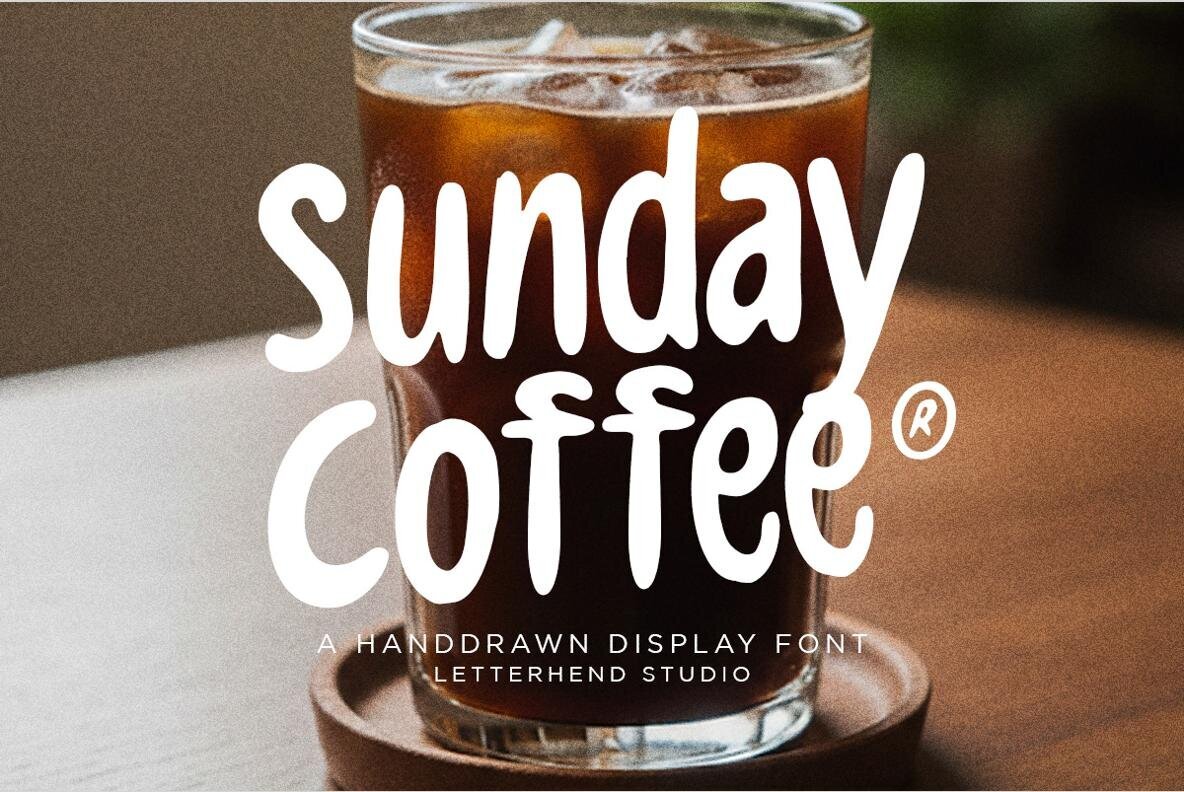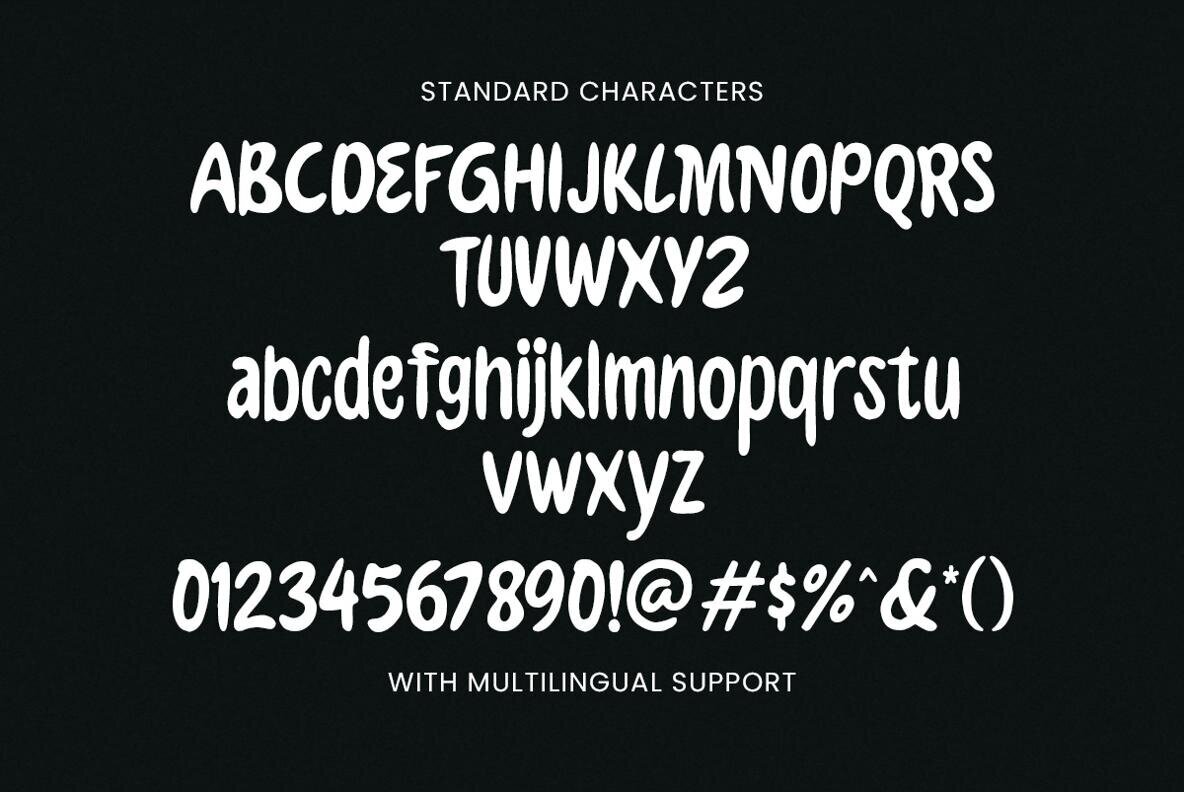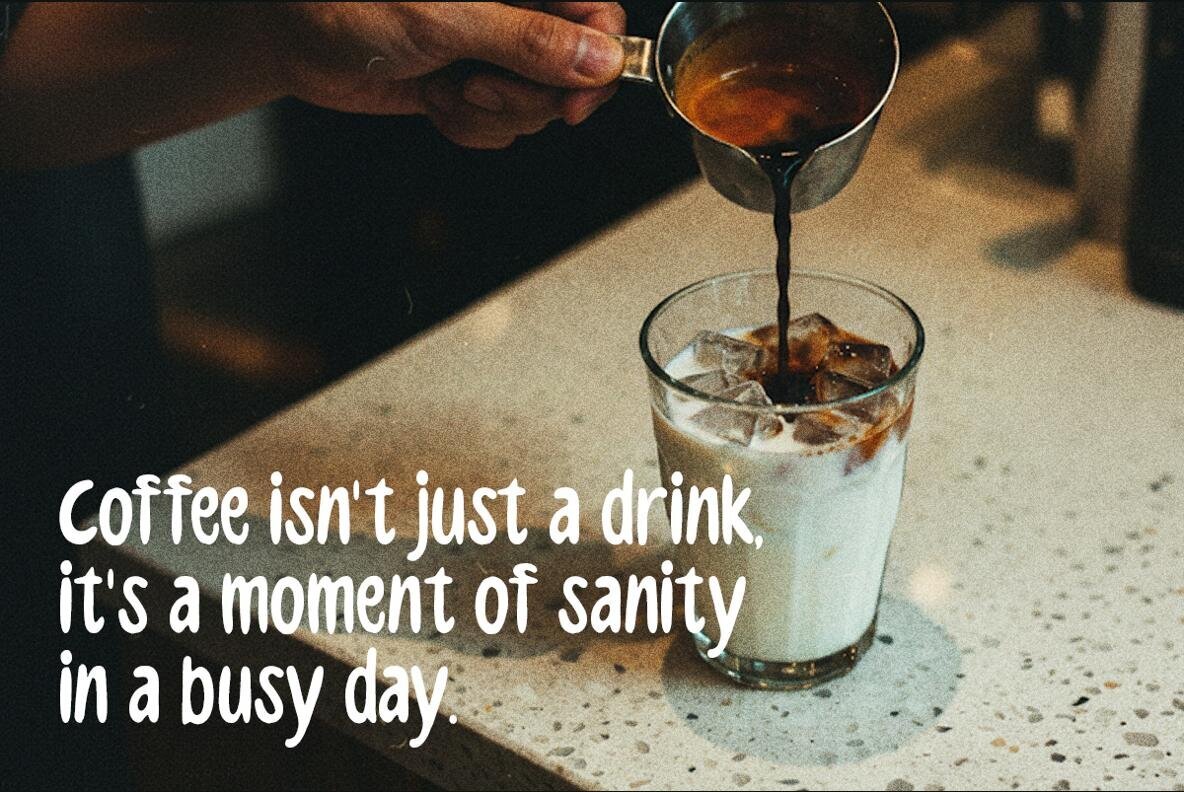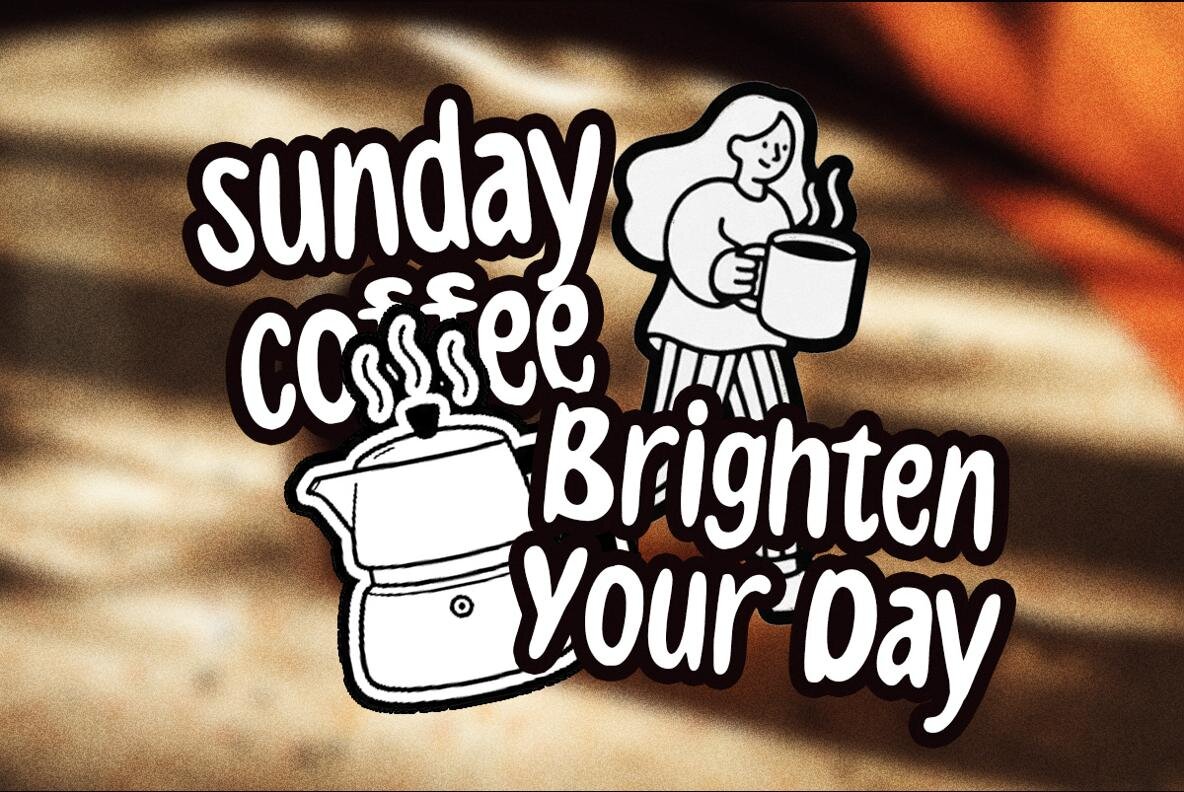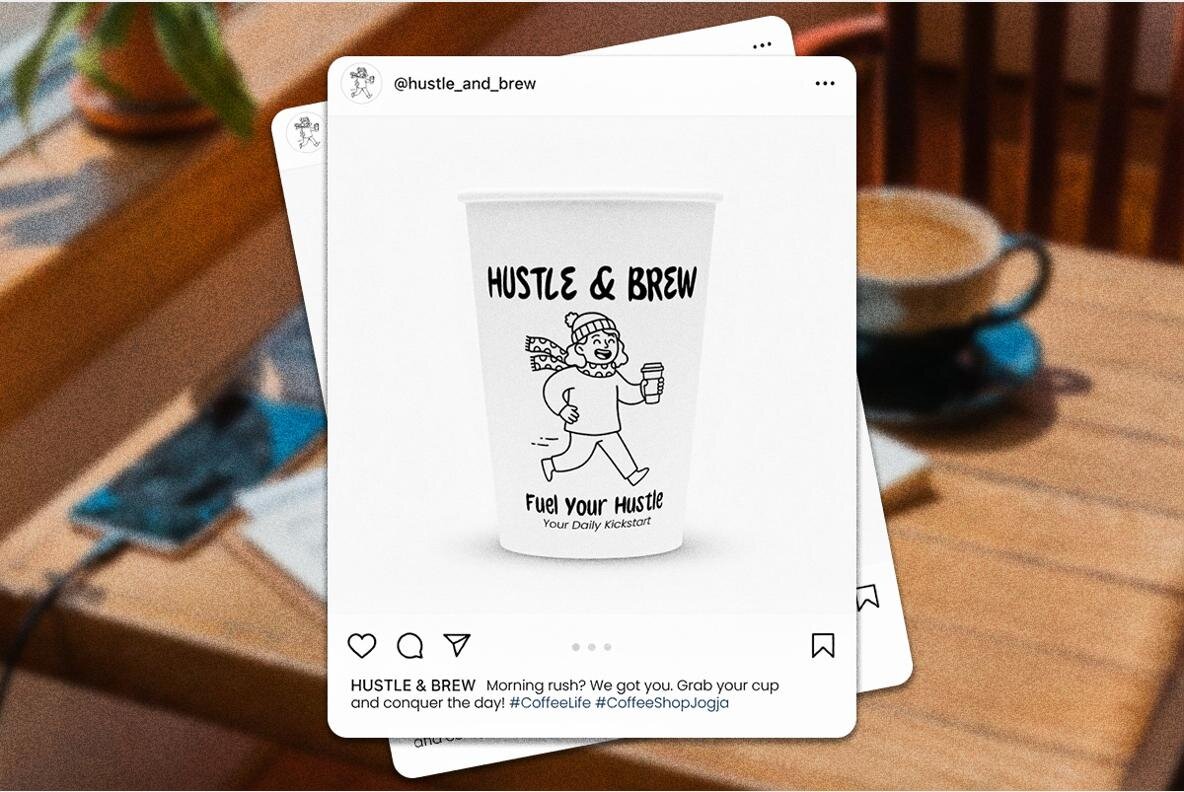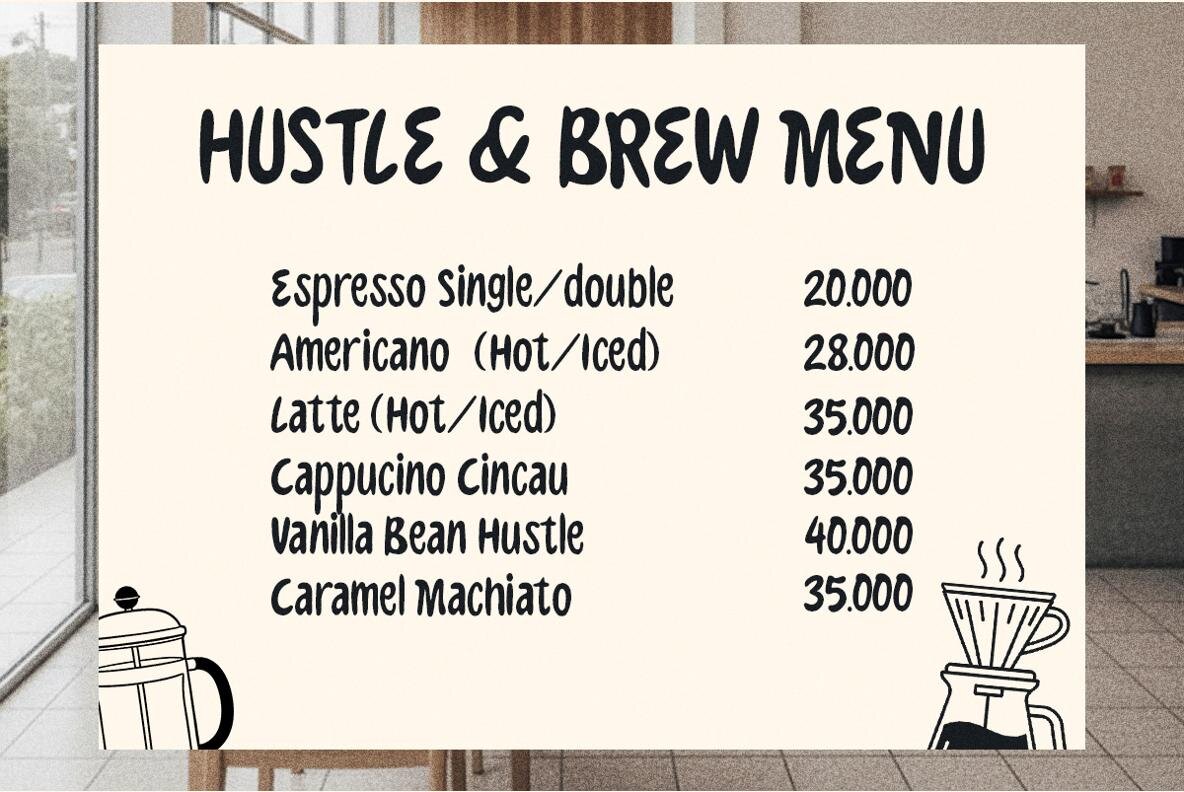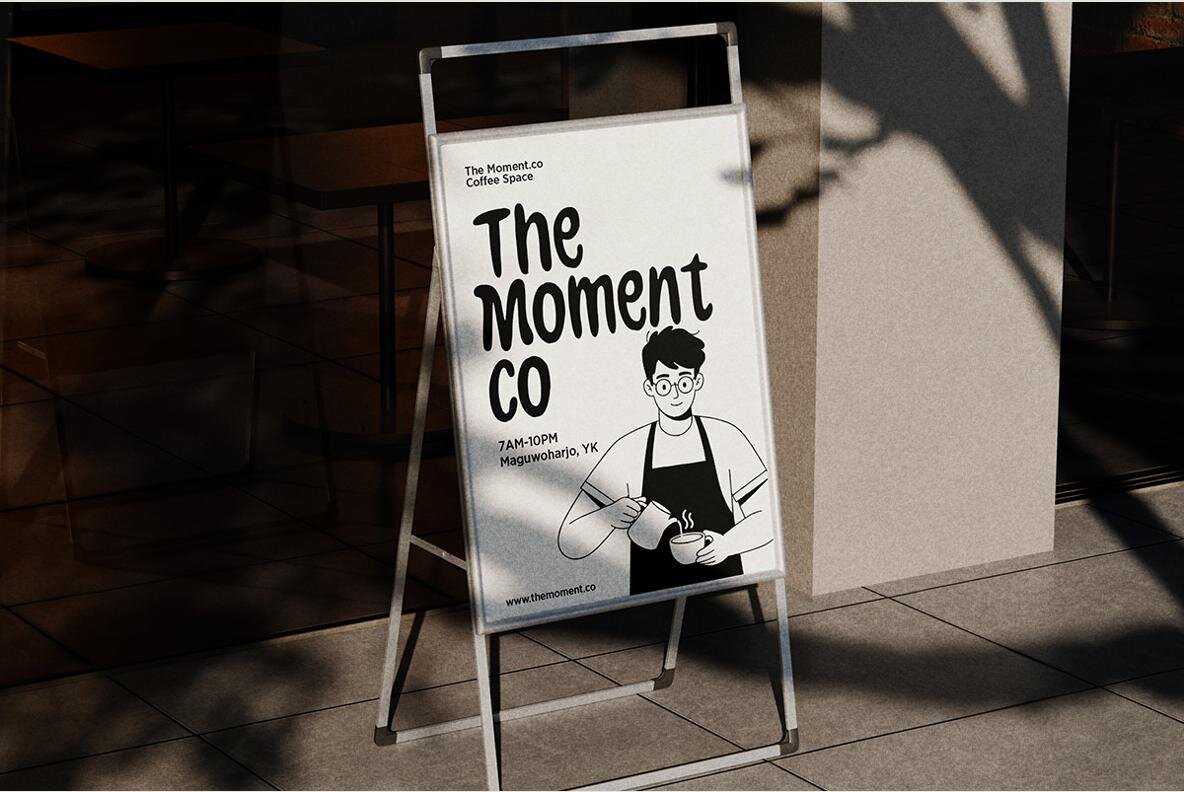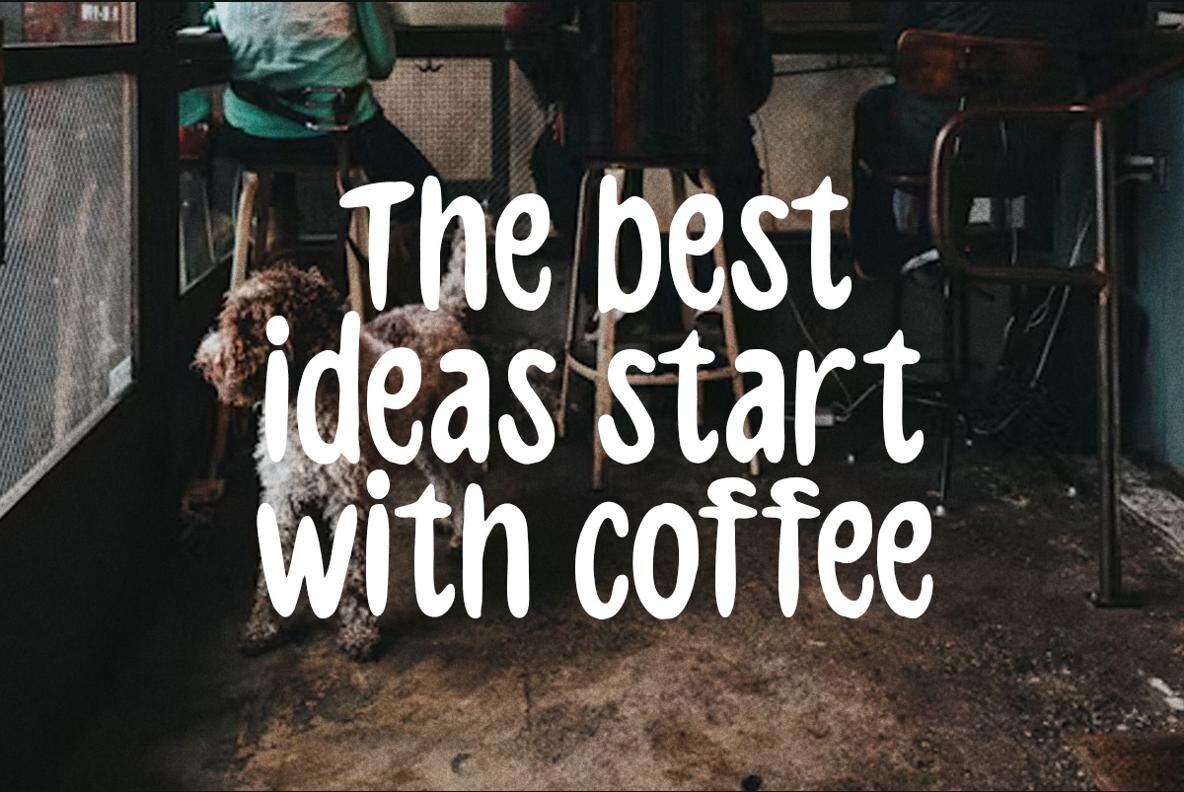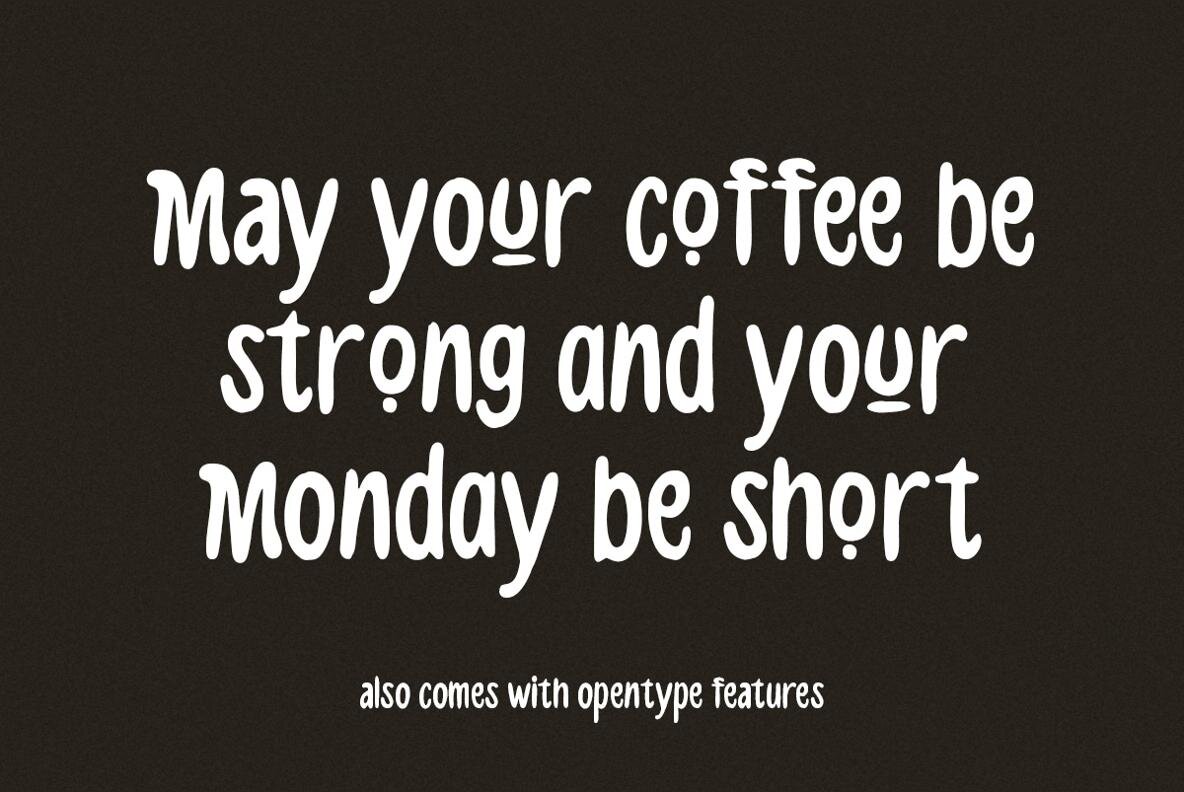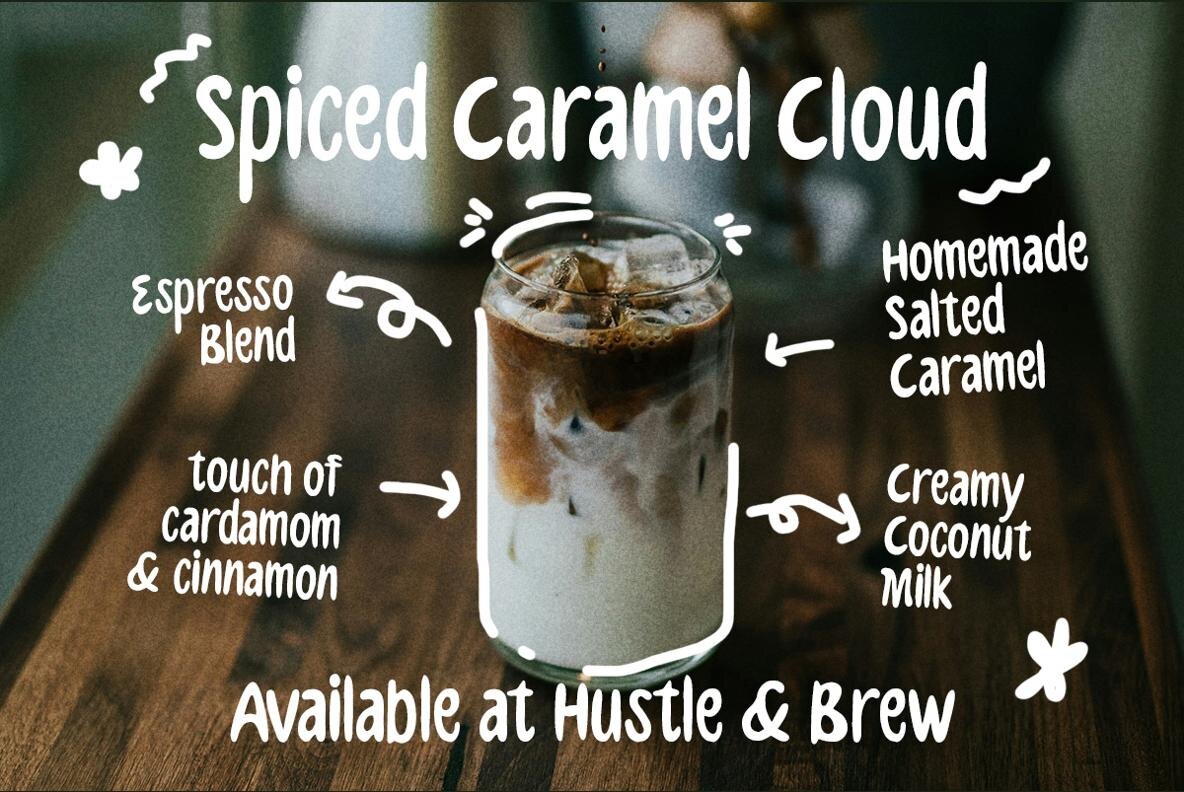
Sunday Coffee Font
Sunday Coffee Regular
Sunday Coffee introduces a warm, organic character to your design work. With playful, chunky letterforms and soft, rounded edges, this font lends a cheerful tone that feels instantly inviting. The slightly wobbly shapes reflect a handcrafted approach, making it ideal for projects that call for a welcoming, approachable style. Perfect for beverage branding, baked goods packaging, café signage, or charming quote graphics, Sunday Coffee creates a friendly atmosphere in every application. Its casual, handcrafted look draws attention without overpowering your message, ensuring your designs remain both distinctive and accessible.Sunday Coffee Hand-Drawn Display Font